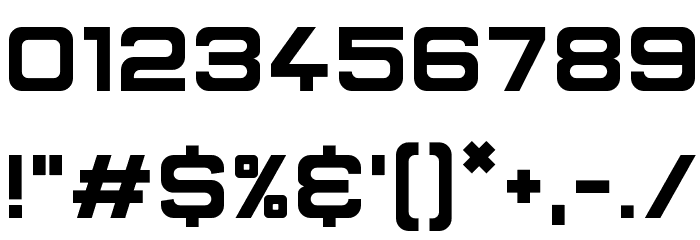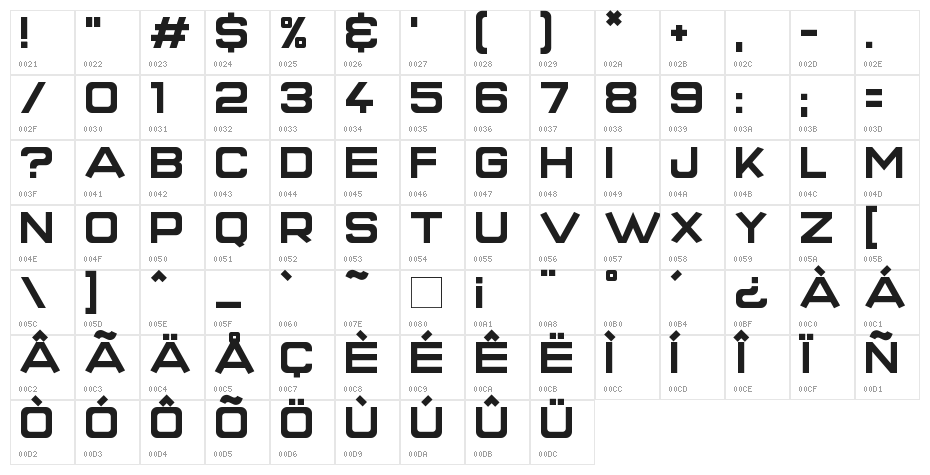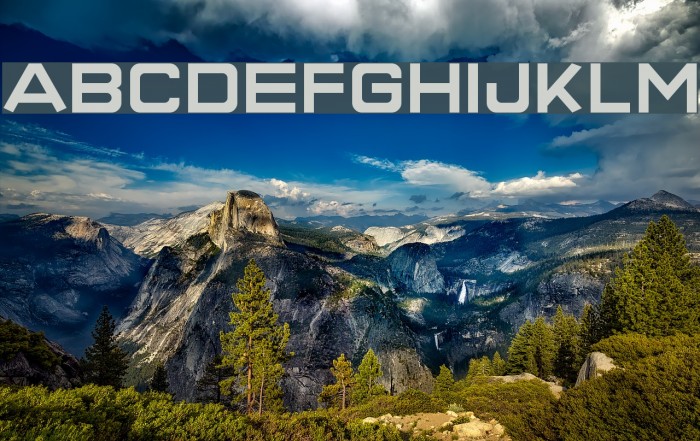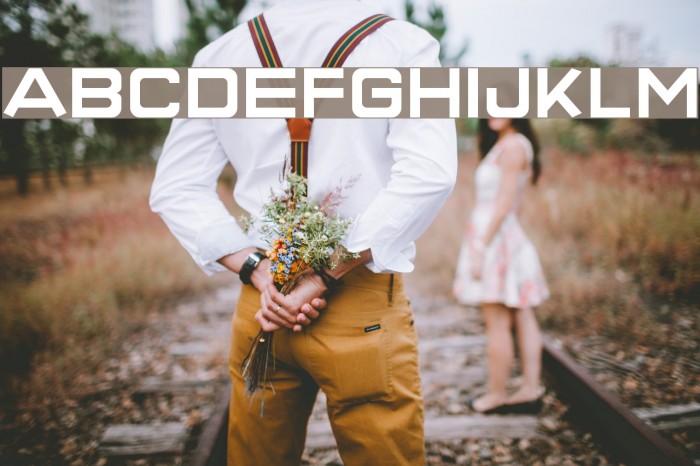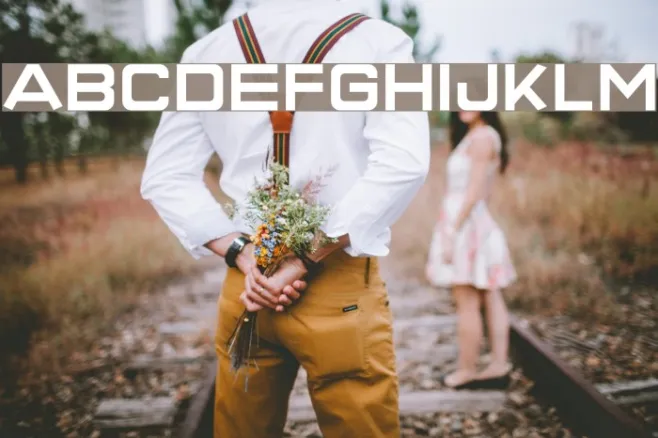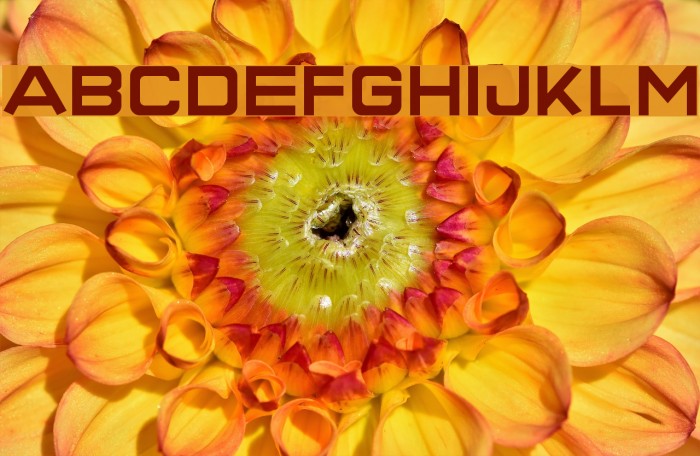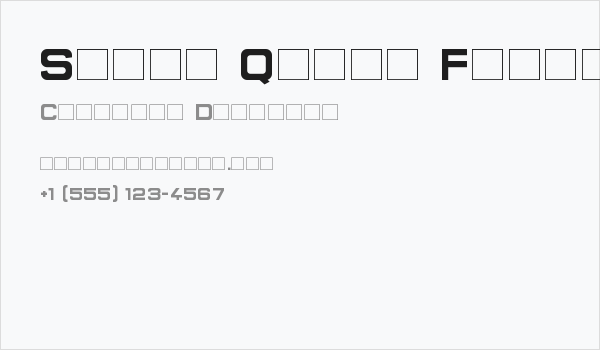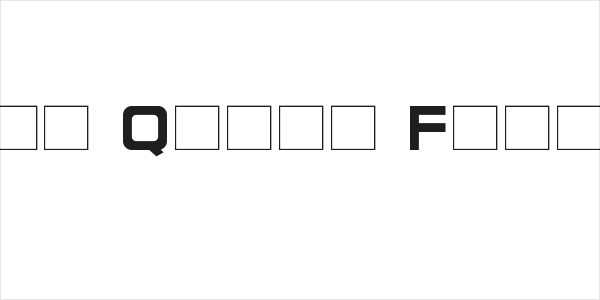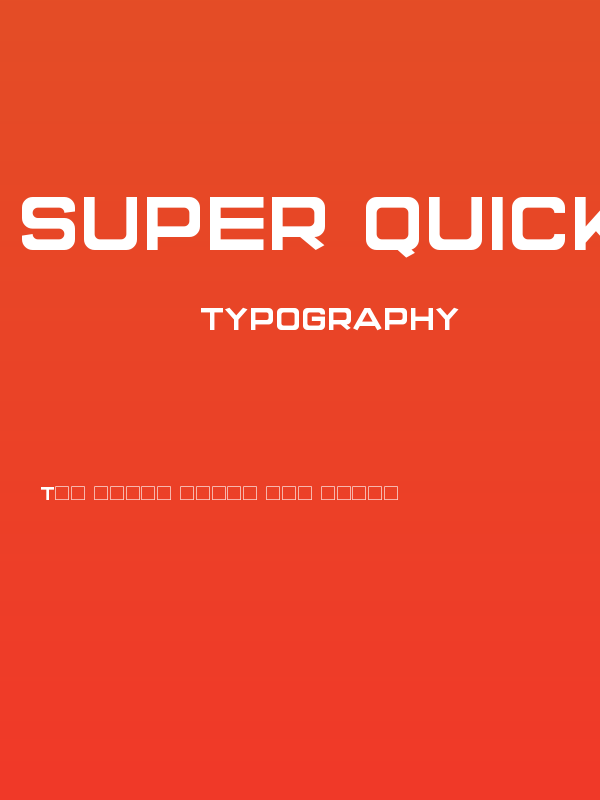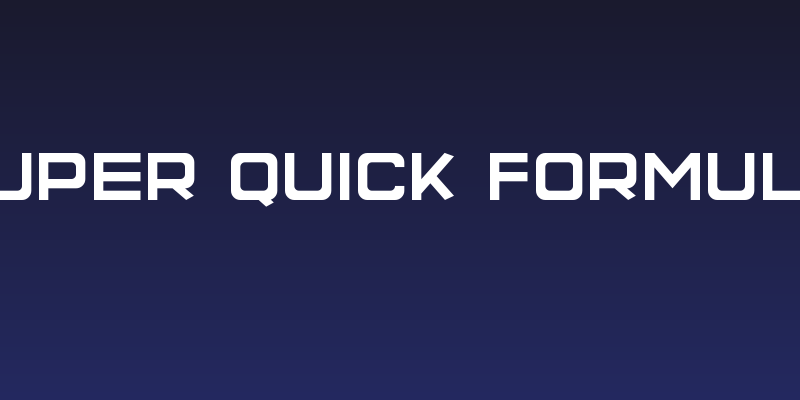
Super Quick Formula Font
Super Quick Formula Description
This font features a bold, geometric design with a modern and futuristic aesthetic. The characters are constructed with uniform stroke widths, giving it a strong and consistent appearance. The angular and blocky shapes of the letters contribute to its technical and industrial feel, making it suitable for applications that require a contemporary and assertive look. The uppercase and lowercase letters maintain a cohesive style, with the numerals and special characters designed to match the overall theme. The font's clean lines and lack of serifs enhance its readability, even at smaller sizes.
| Proposed Projects | Ideal for technology branding, video game titles, sci-fi posters, and modern advertising. |